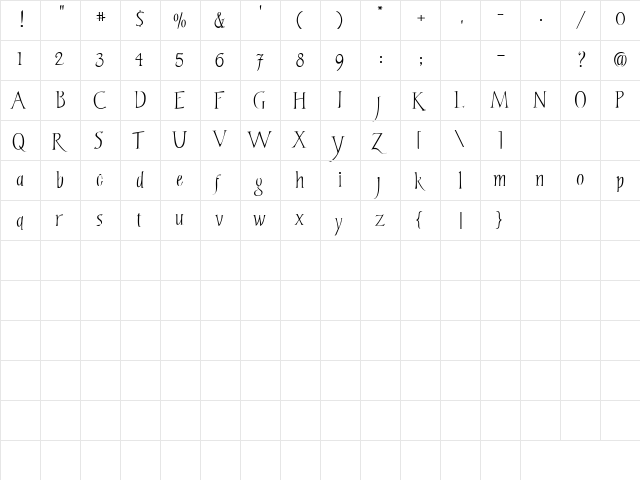
AL Updated Classic Regular
Design Context for AL Updated Classic Typeface
AL Updated Classic wears its vintage influences proudly, with letterforms that recall mid-century signage, classic packaging, and nostalgia-driven design.
Font Pairing: Combine AL Updated Classic with a simple slab or neutral sans — period-accurate companions reinforce the vintage feel without competing for attention.
Pro Tip: Lean into AL Updated Classic's period character by pairing it with aged paper textures, muted colour palettes, and vintage illustration styles.